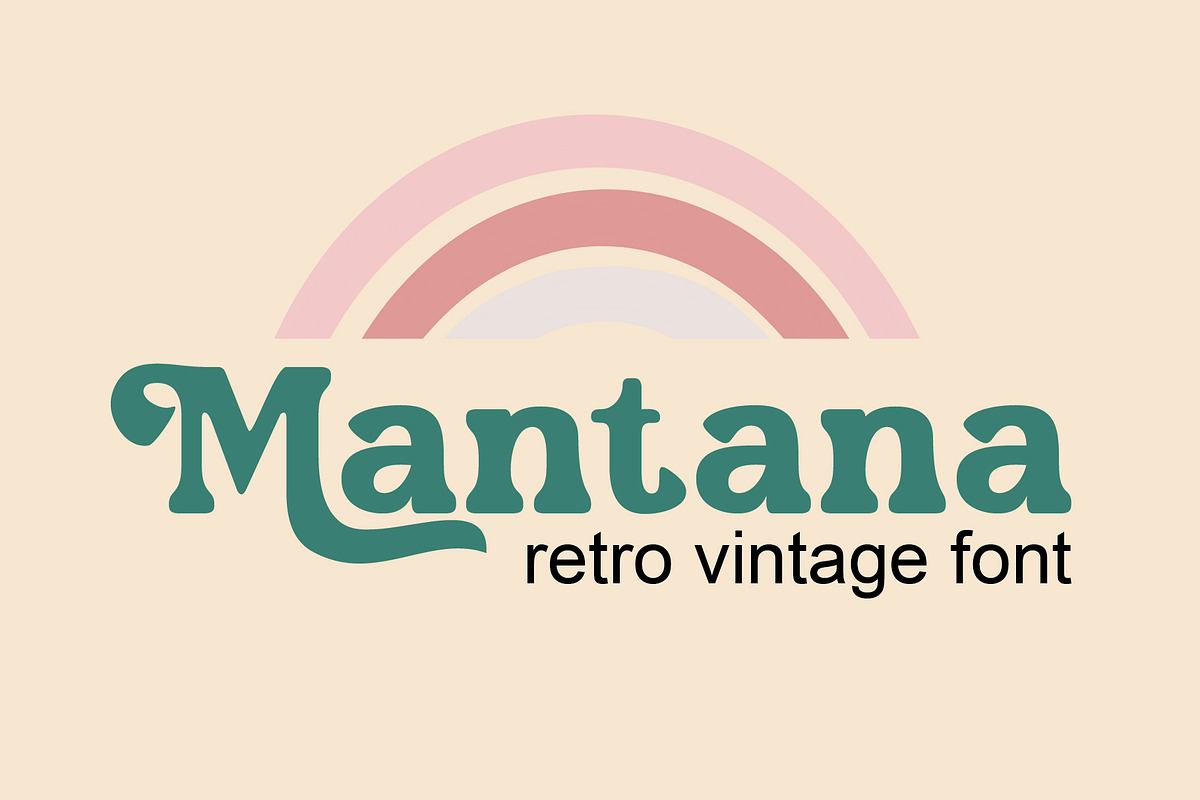
Mantana - Retro Vintage DIsplay font Free Download
Mantana - Retro Vintage Display Font Free Download
Mantana - Retro Vintage Display Font Free Download is a bold and eye-catching typeface inspired by the timeless design trends of the past. With its unique retro and vintage style, this font is perfect for creating memorable logos, posters, advertisements, and branding materials that evoke nostalgia and creativity. Whether you're working on a retro-themed event, music album cover, or a vintage product label, Mantana - Retro Vintage Display Font Free Download adds personality and flair to your designs. Its strong, distinctive letterforms make it stand out in any project. Test its vibrant retro charm in personal projects before purchasing a commercial license and bring a touch of vintage style to your designs with this beautifully crafted display font.